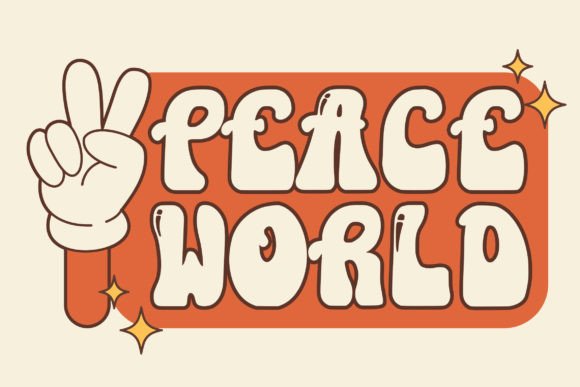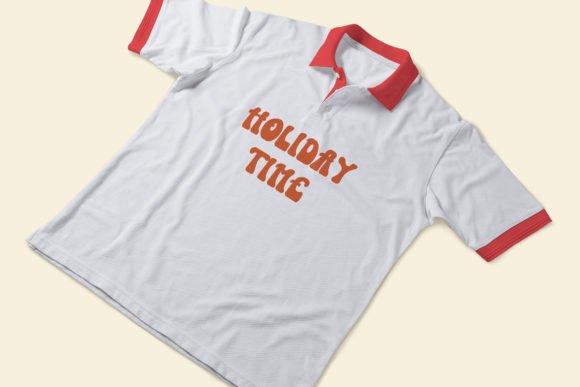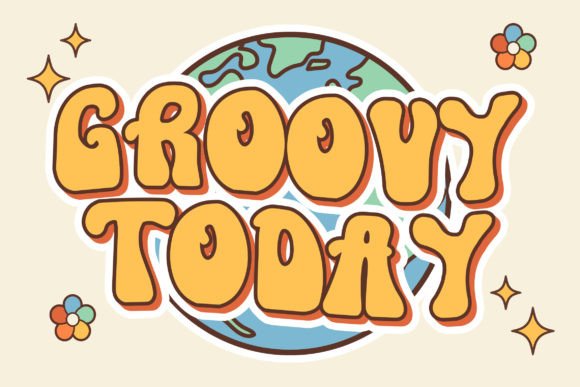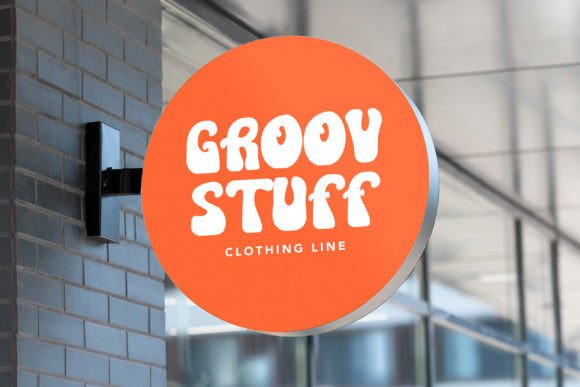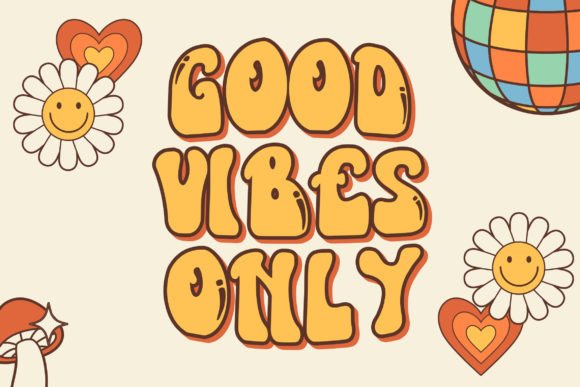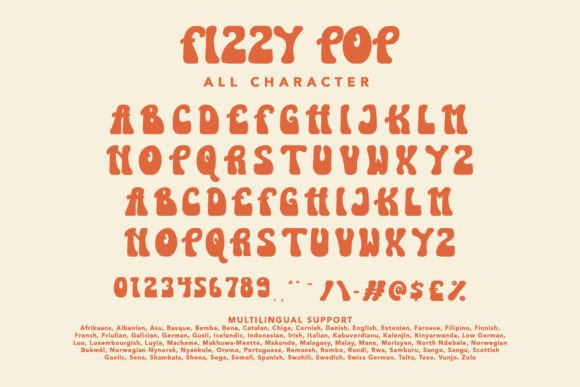
Fizzy Pop Font: The Groovy Display Font for Creative Projects
Are you looking for a font that adds a touch of personality to your designs? Look no further than Fizzy Pop, a groovy display font that’s perfect for a wide range of creative projects. With its distinctive handwritten characters, Fizzy Pop is ideal for designers and crafters who want to add a unique and stylish touch to their work.
What Makes Fizzy Pop Special?
Fizzy Pop is a carefully crafted font that’s designed to bring a sense of fun and playfulness to your designs. Its handwritten characters are distinctive and full of personality, making it perfect for projects that need a touch of whimsy. Whether you’re working on branding projects, logos, wedding designs, media posts, advertisements, product packaging, product designs, labels, photography, watermarks, invitations, stationery, or any other project that needs a handwritten touch, Fizzy Pop is the perfect choice.
Key Features of Fizzy Pop Font
- Distinctive Handwritten Characters: Fizzy Pop’s handwritten characters are unique and full of personality, making it perfect for projects that need a touch of whimsy.
- Groovy Display Font: Fizzy Pop is a display font that’s designed to make a statement. Its bold and playful characters are perfect for headlines, titles, and other display text.
- Perfect for Creative Projects: Fizzy Pop is ideal for a wide range of creative projects, including branding projects, logos, wedding designs, media posts, advertisements, product packaging, product designs, labels, photography, watermarks, invitations, stationery, and more.
Why Choose Fizzy Pop Font?
There are many fonts to choose from, but Fizzy Pop stands out from the crowd. Here are just a few reasons why:
- Unique and Stylish: Fizzy Pop’s distinctive handwritten characters make it a unique and stylish addition to any project.
- Versatile: Fizzy Pop is perfect for a wide range of creative projects, from branding and logos to wedding designs and product packaging.
- High-Quality: Fizzy Pop is a high-quality font that’s designed to deliver exceptional results. Its bold and playful characters are perfect for making a statement.
Fizzy Pop font is a groovy display font that’s perfect for creative projects. With its distinctive handwritten characters, PUA encoding, and versatility, Fizzy Pop is the perfect choice for designers and crafters who want to add a unique and stylish touch to their work. Whether you’re working on branding projects, logos, wedding designs, or any other project that needs a handwritten touch, Fizzy Pop is the perfect font for you.